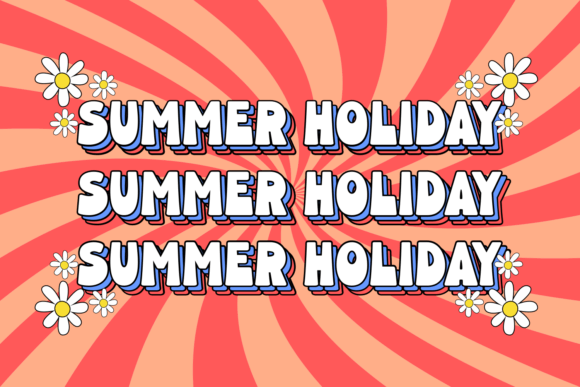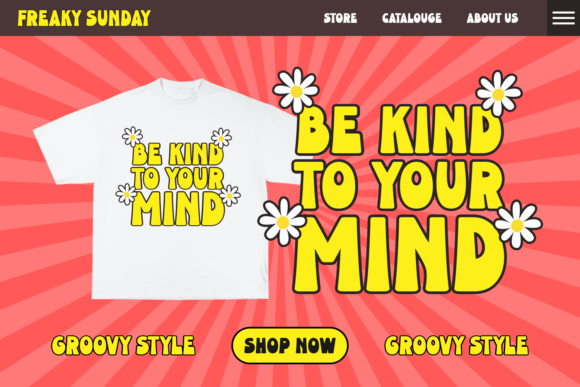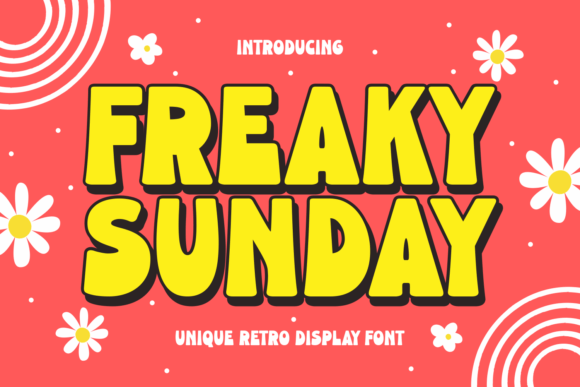
Introduction to Freaky Sunday Font
This font pulsates with energy and is a delightful blend of retro charm and contemporary style.
The strokes are fluid and dynamic as if captured in the midst of a groovy dance move Is the perfect choice for projects that require a touch of funk and personality.
Freaky Sunday Font offers exceptional quality and versatility, making it a valuable addition to your design toolkit. Whether you’re creating for personal projects or commercial use, Freaky Sunday Font delivers professional results.